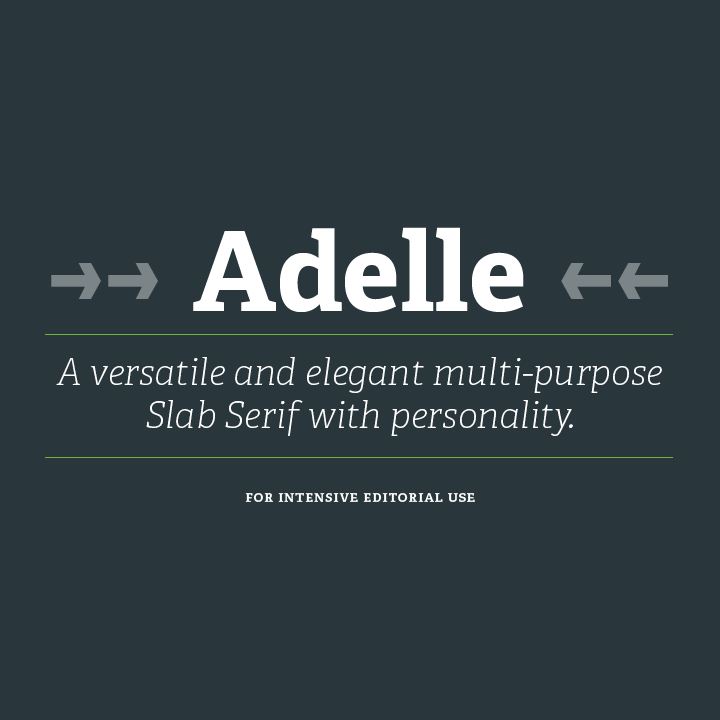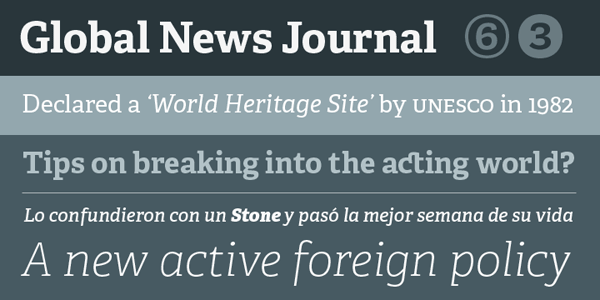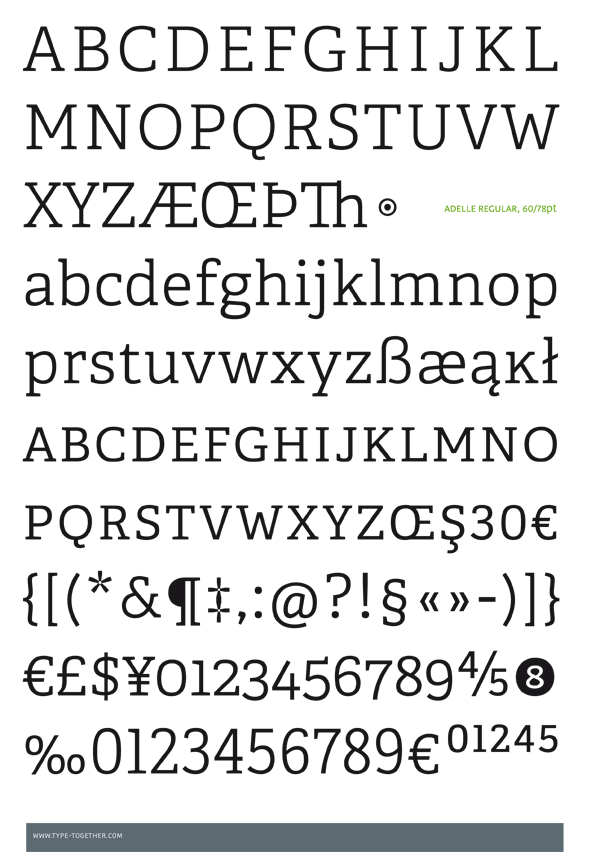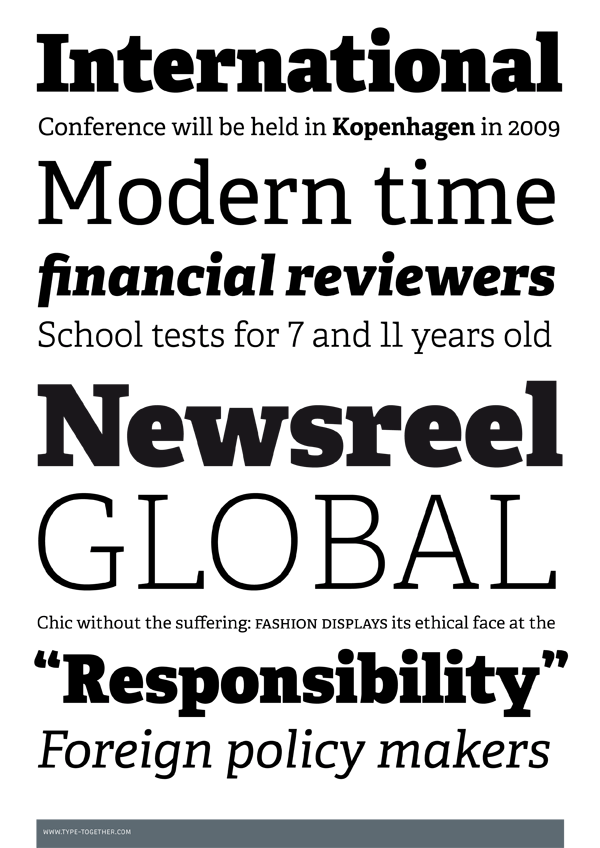
Adelle Font Family.
Adelle is an award winning slab serif font designed by Veronika Burian and José Scaglione (published by TypeTogether). The typeface is focused on editorial use, mainly for newspapers and magazines. The type family consists of 12 styles, ranging from light to heavy with more than 900 characters per font. Adelle supports over 40 languages that use the Latin extended alphabet.